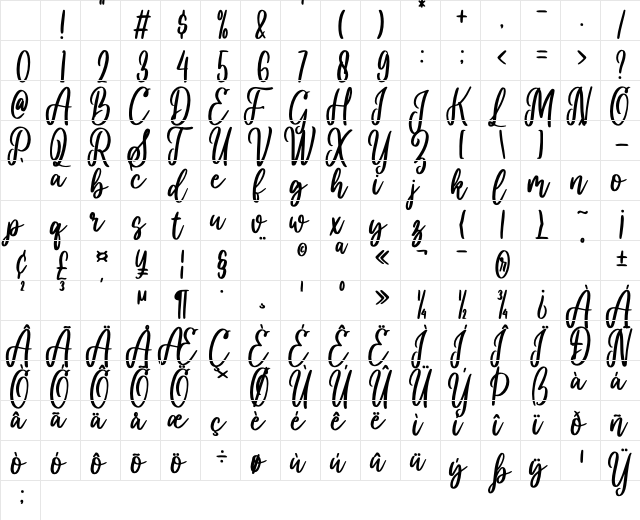
Complete you are my everythink script fo Regular glyph index. Displaying only characters natively supported by you are my everythink script fo Regular font.
you are my everythink script fo flows with the natural rhythm of handwritten lettering, making it ideal for designs that call for warmth and personal expression. Its slender proportions lend an understated elegance to any composition.
Font Pairing: Combine you are my everythink script fo with a simple geometric sans for maximum contrast - the tension between flowing curves and clean structure is a classic typographic pairing.
Pro Tip: Use you are my everythink script fo for short runs of text - names, titles, or taglines. Extended body copy in script faces tires the eye quickly.